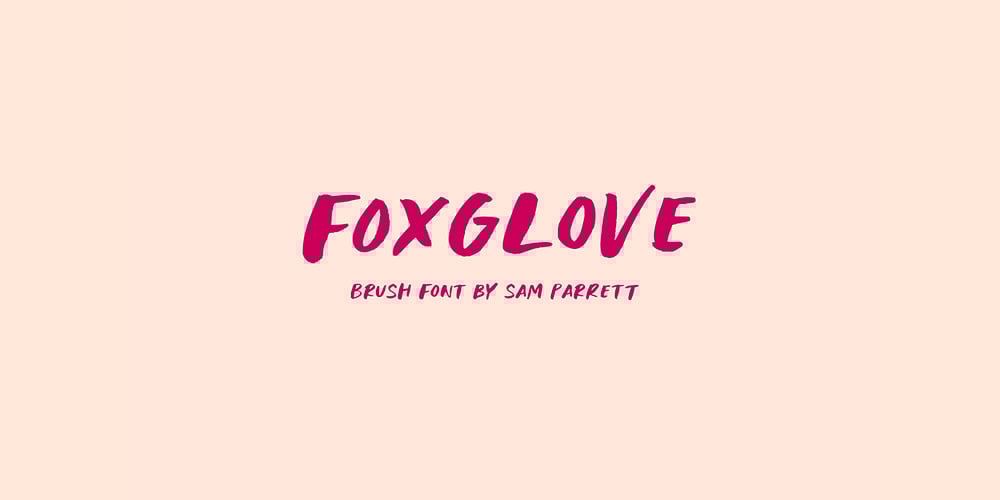
Foxglove
Foxglove font
Foxglove Font Family was designed by Sam Parrett and published by Set Sail Studios. Foxglove contains 1 styles and family package options. Foxglove is a playful, minimal brush font designed to add a personal, charming quality to quotes, branding, promotional images and product designs. Foxglove contains two sets of uppercase characters, you can switch between these simply by turning your caps-lock on & off.Contains language support for; English, French, Italian, Spanish, Portuguese, German, Swedish, Norwegian, Danish, Dutch, Finnish, Indonesian, Malay, Hungarian, Polish, Croatian, Turkish, Romanian, Czech, Latvian, Lithuanian, Slovak, Slovenian.